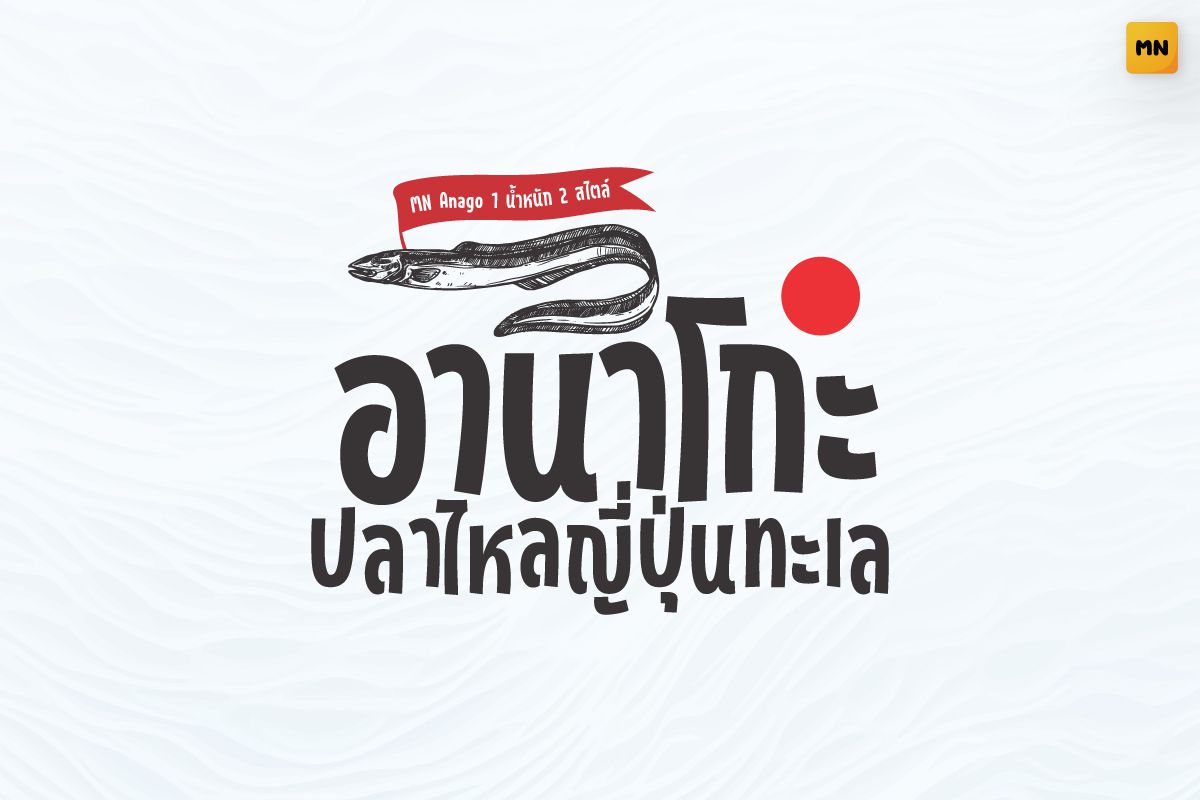
MN Anago Italic
A modern Thai display font inspired by Japanese aesthetics. Its bold yet curved shapes create a clean and confident look, perfect for restaurant logos, packaging, and headlines that need a strong but friendly touch.